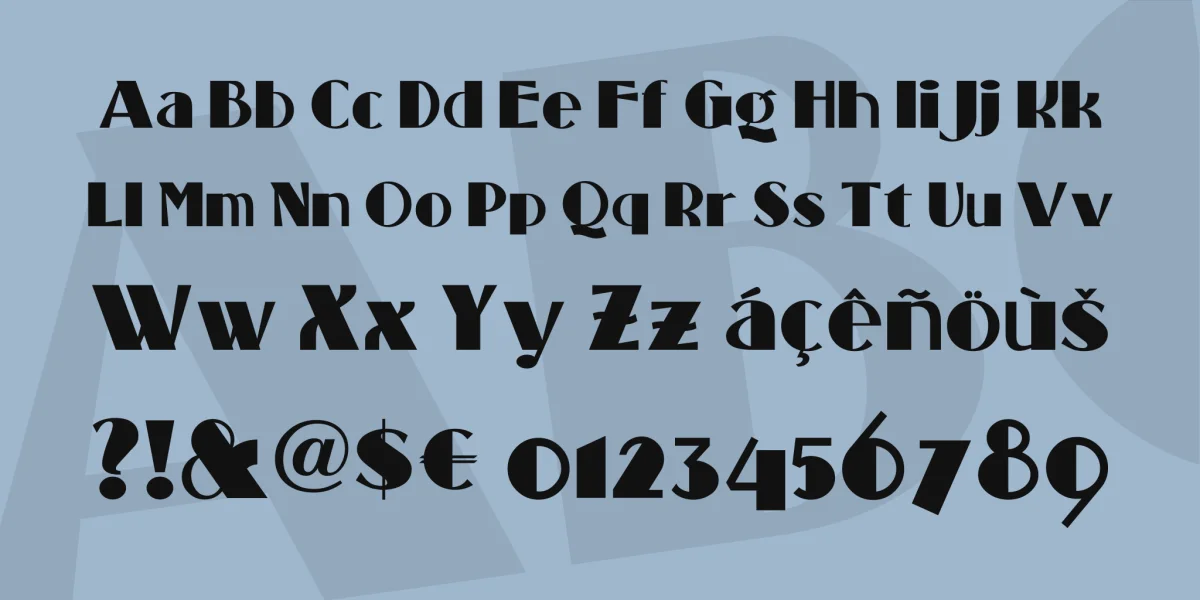
An adaptation of an obscure font called Broadway Poster, beefier and quirkier than the more familiar Broadway Plain and Engraved flavors. Suitable for boffo productions and spectaculars.